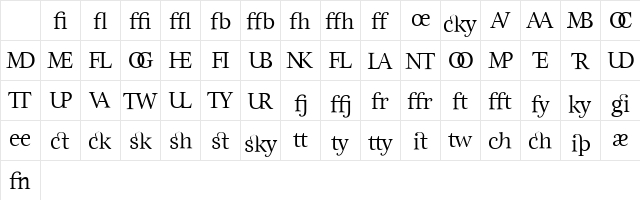
Complete EstaLigatures Regular glyph index. Displaying only characters natively supported by EstaLigatures Regular font.
EstaLigatures is a composed and adaptable typeface that performs quietly and consistently across a wide range of design contexts.